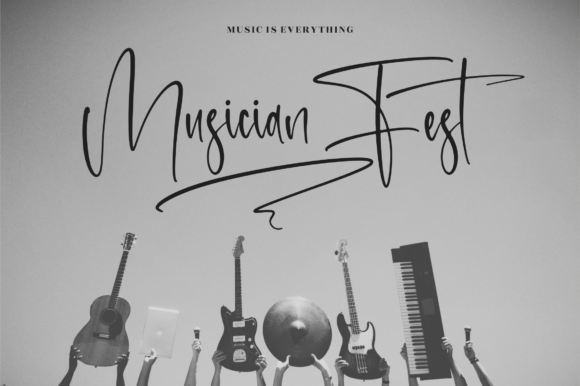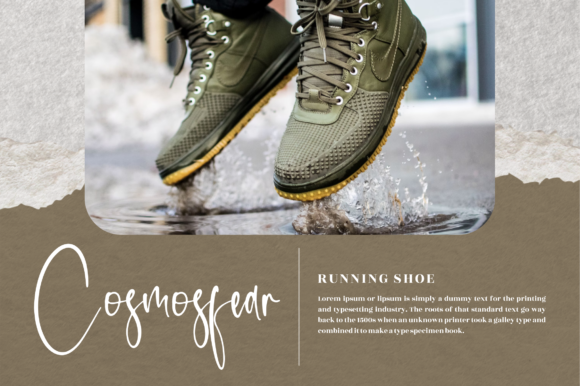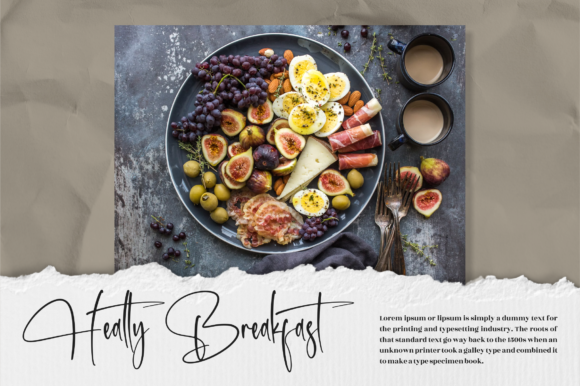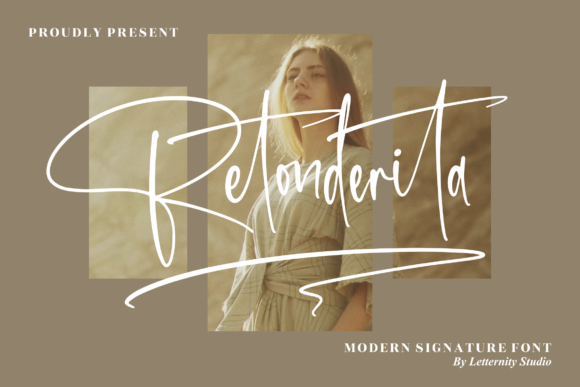
Introduction to Retonderita Font
Retonderita is an elegant script font with a contemporary atmosphere and impeccable form, inspired by timeless classic calligraphy.
👤 Author Letternity
This font is PUA encoded which means you can access all glyphs and swashes with ease .
Key Features of Retonderita Font
Why Choose Retonderita Font?